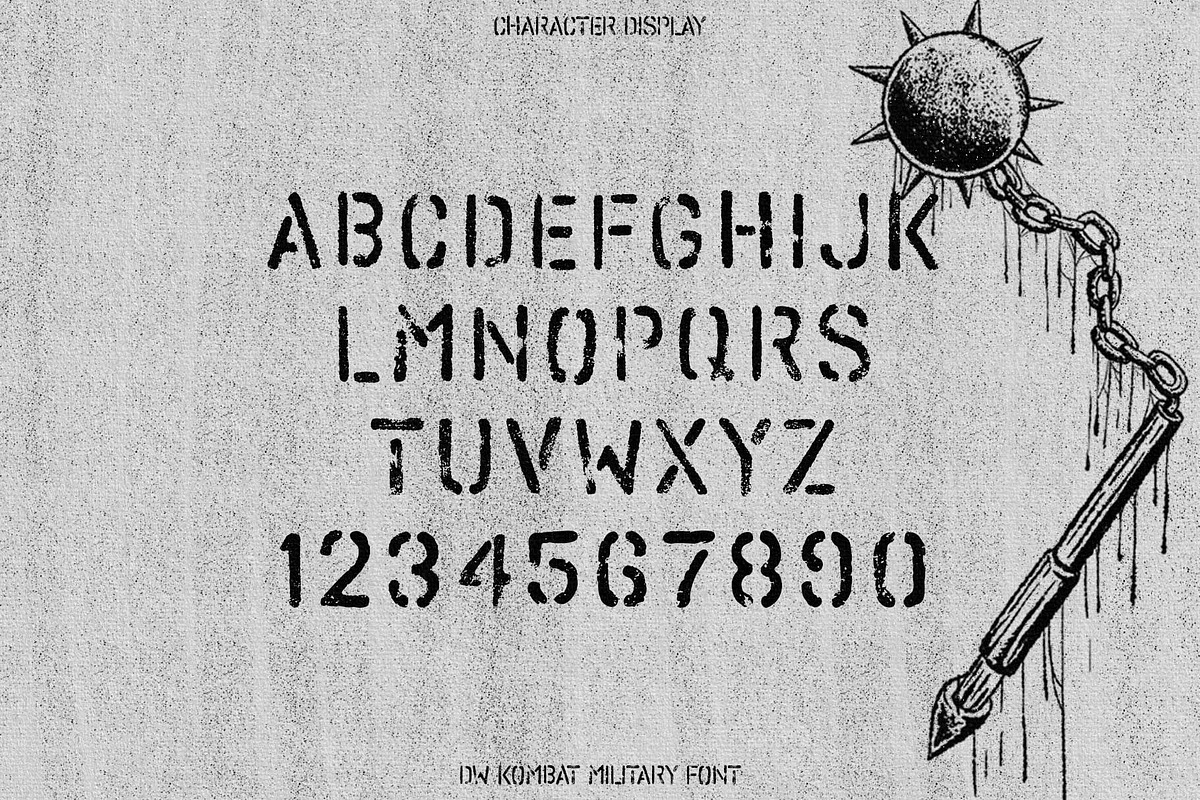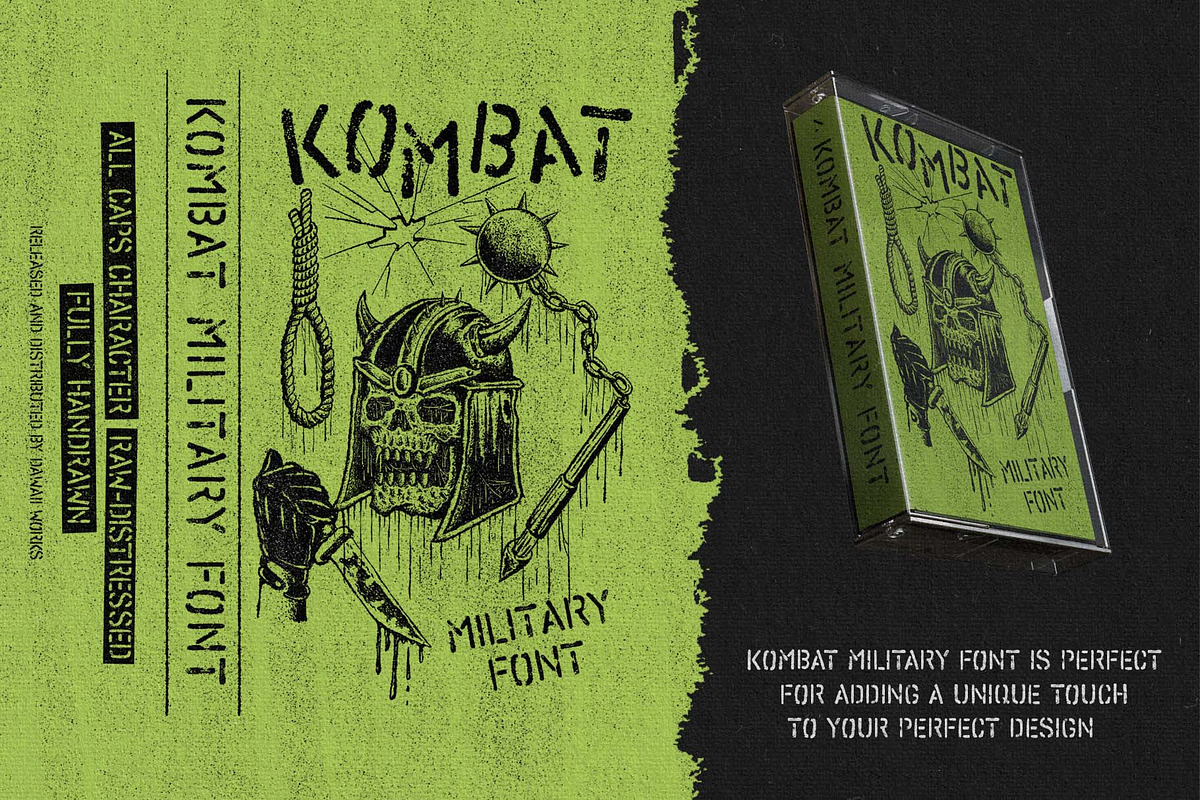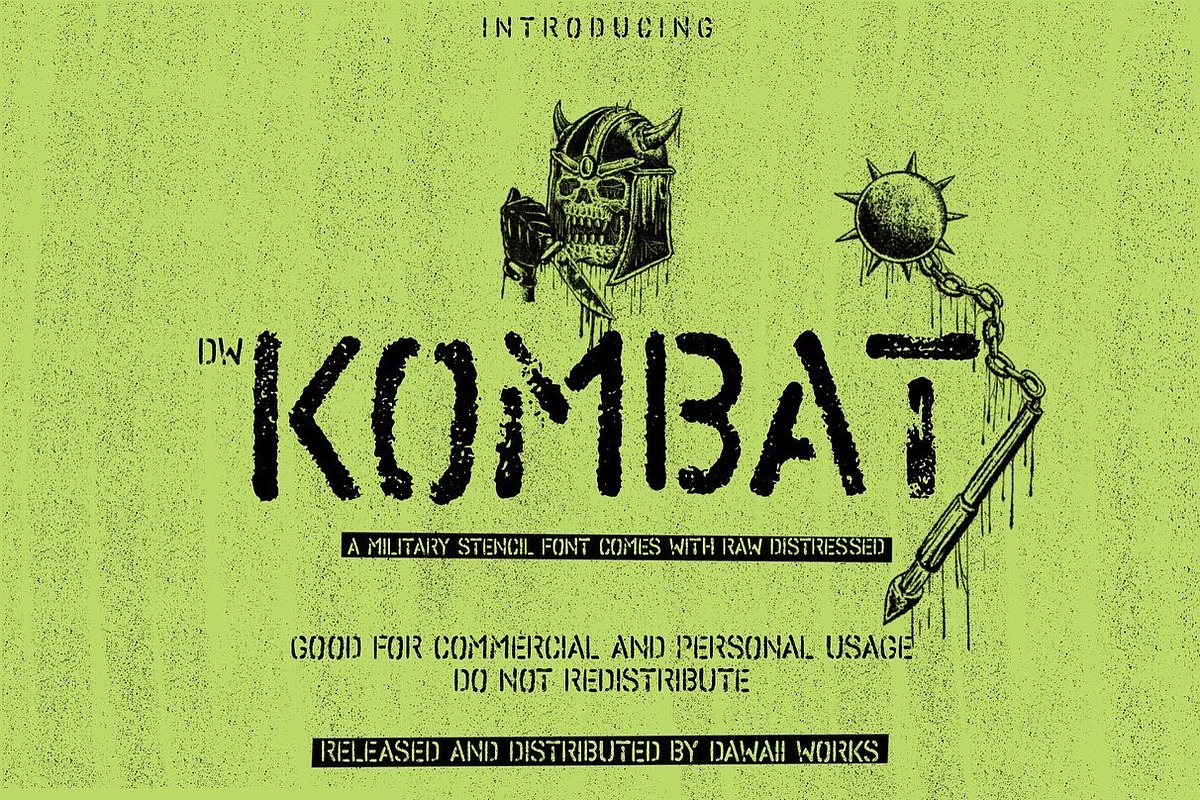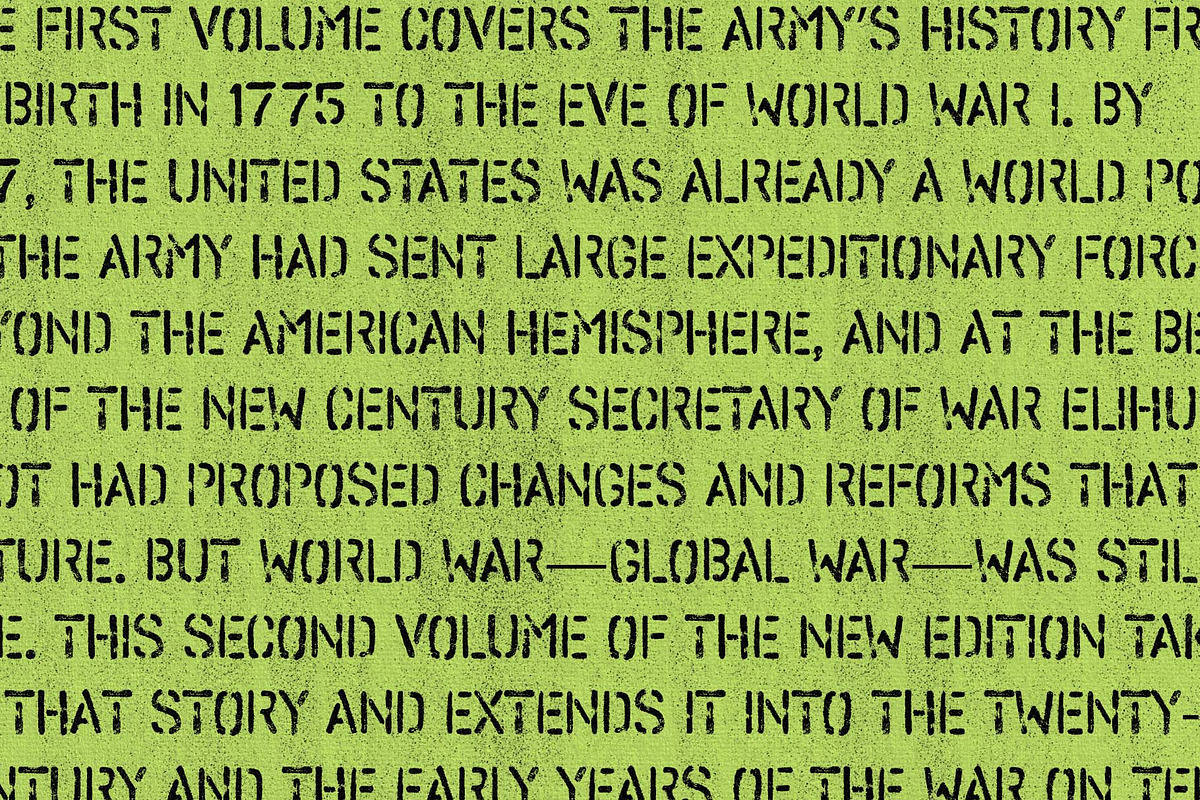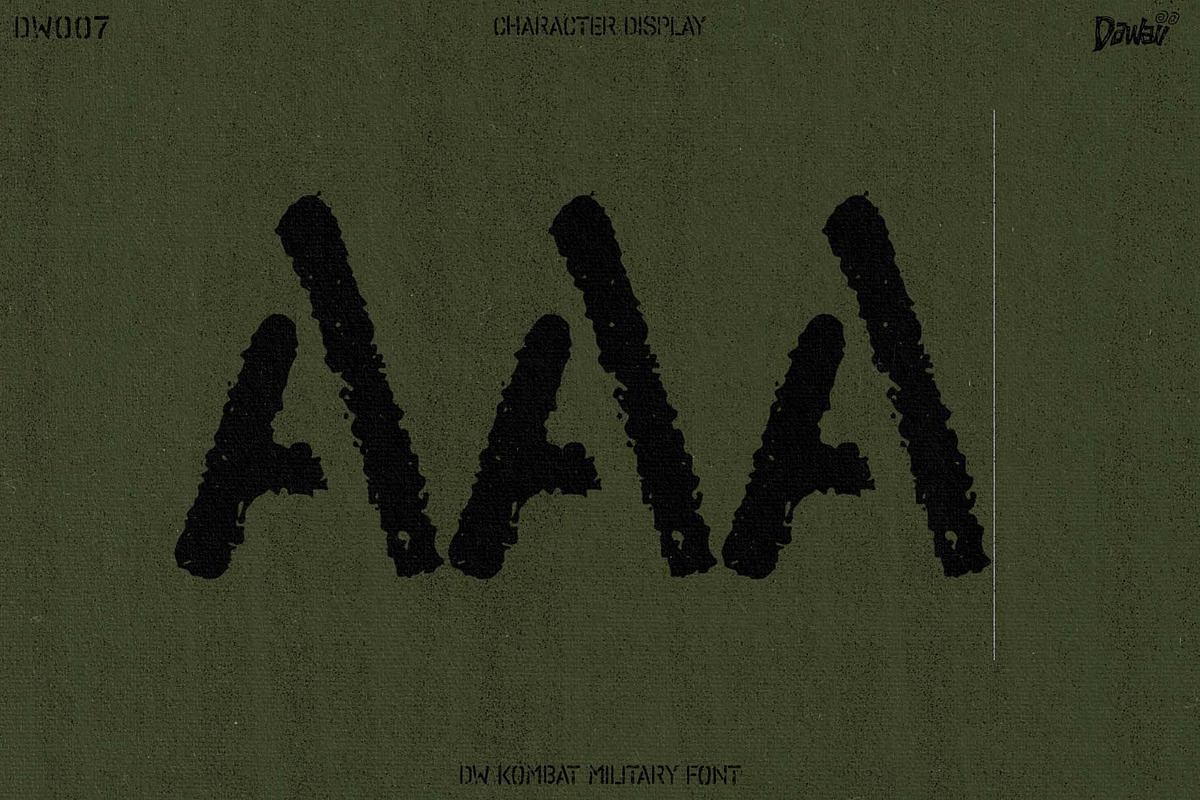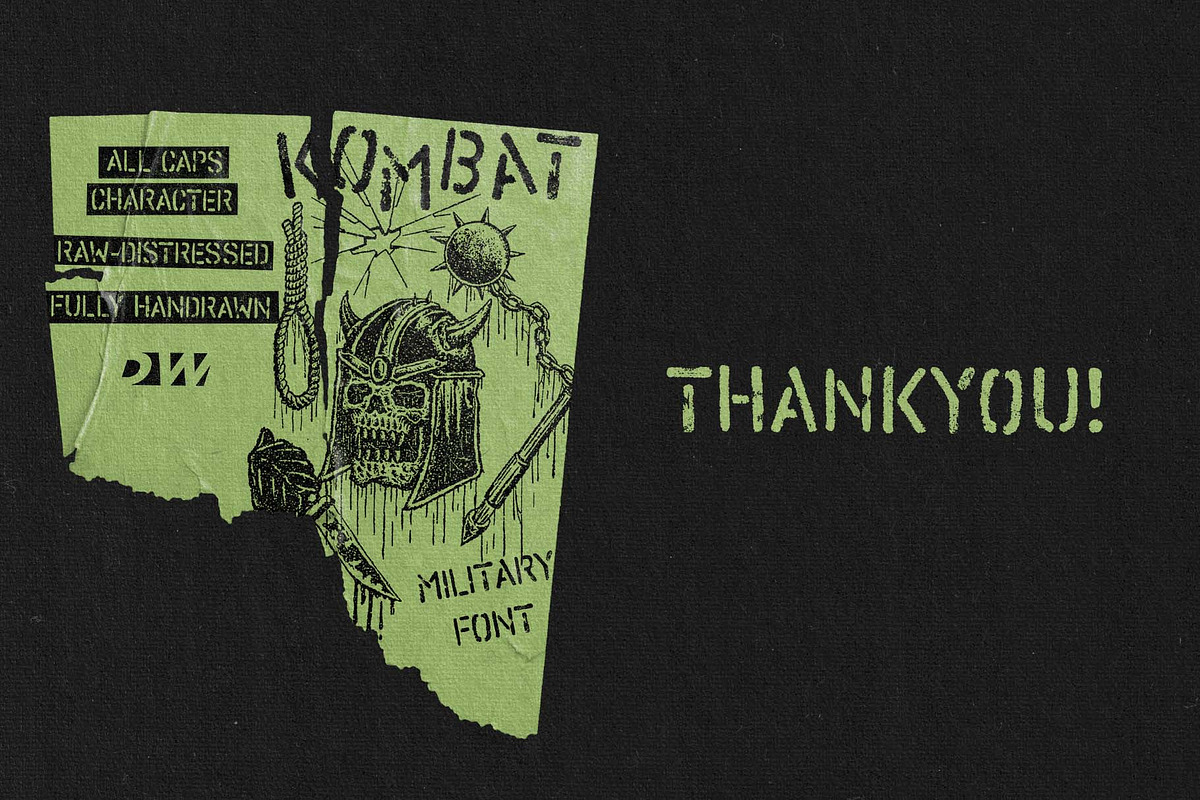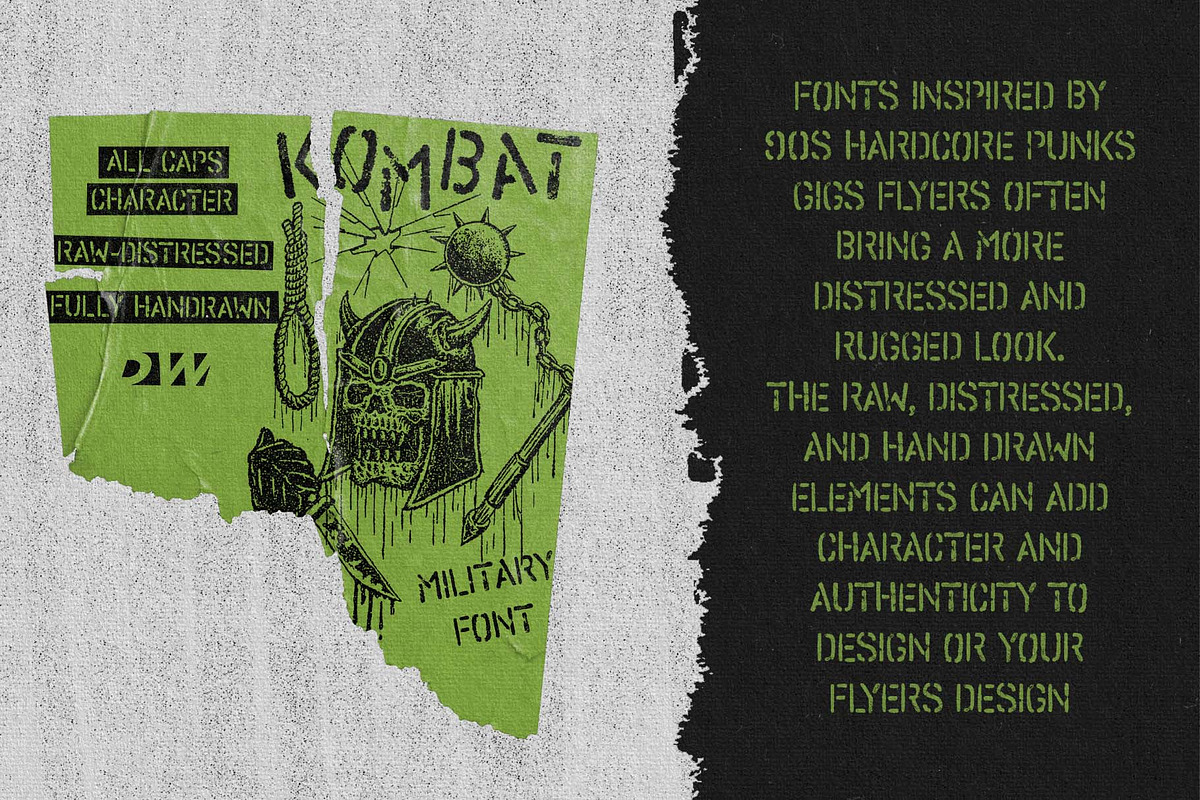
DW KOMBAT MILITARY
Introducing DW KOMBAT MILITARY
DW KombatMilitary inspired by 90sHardcore / Punk gigs flyers, raging with raw distressed effect and fully hand drawn rugged texture. Its suitable for your branding ,design, badges, sign, and vintage look what you looking for.
DW Kombat Military